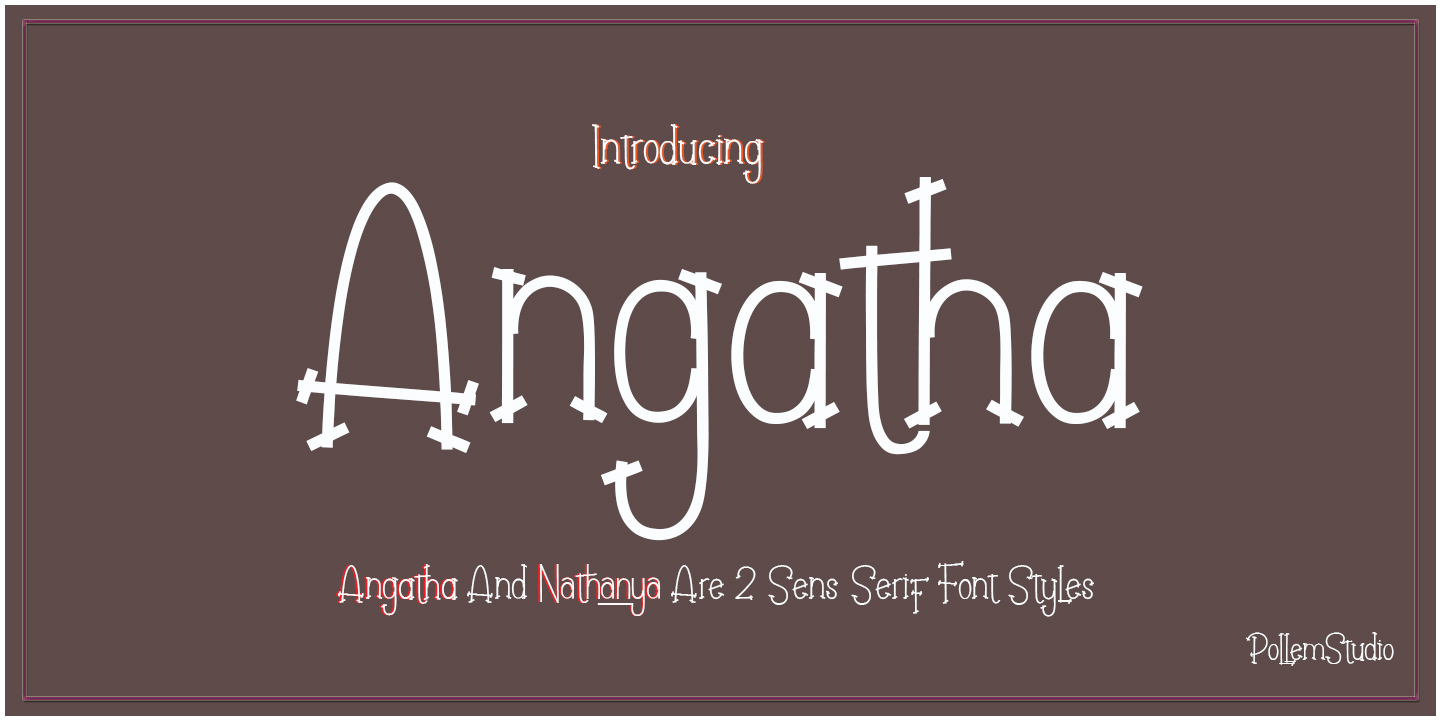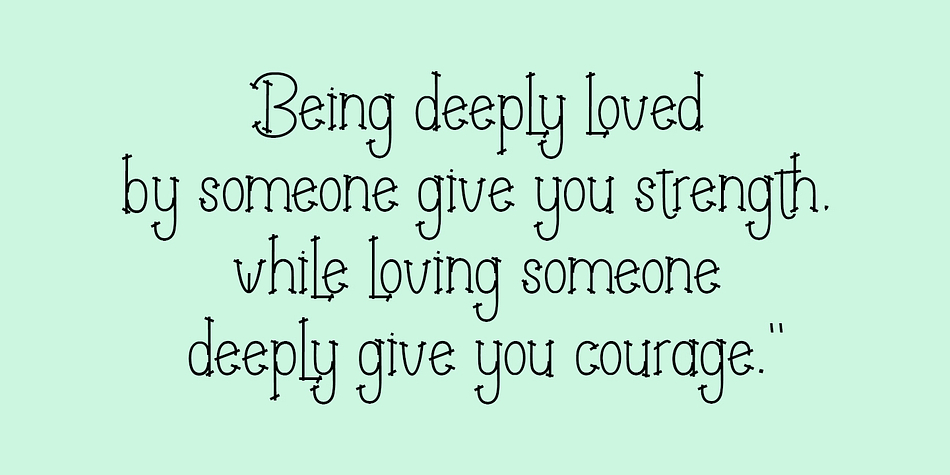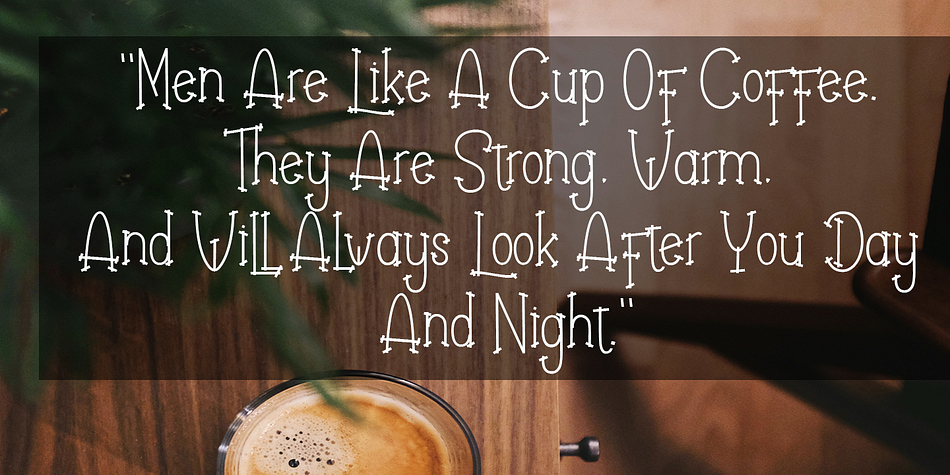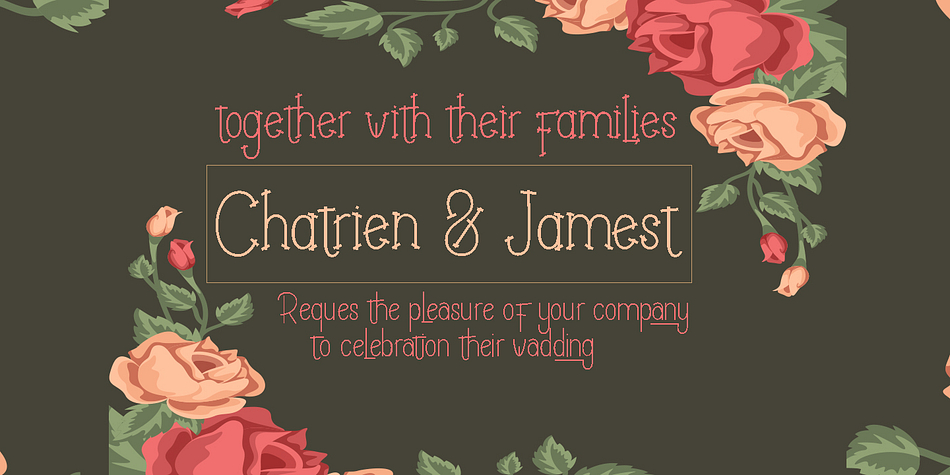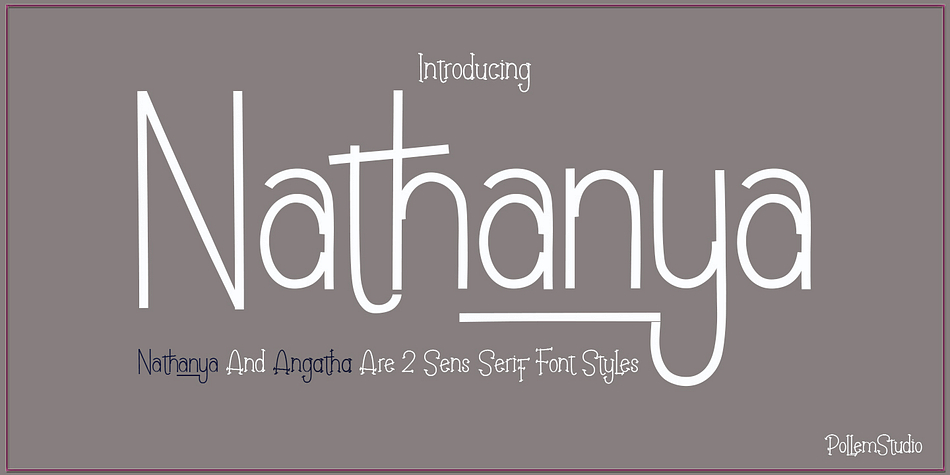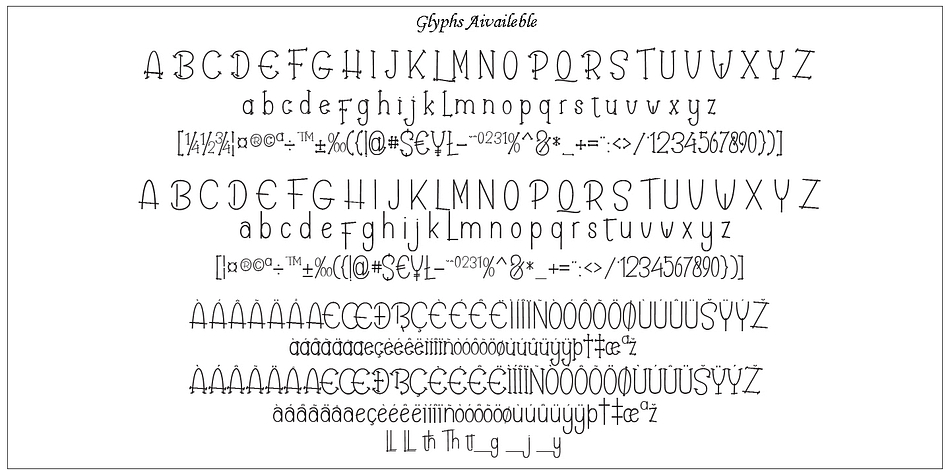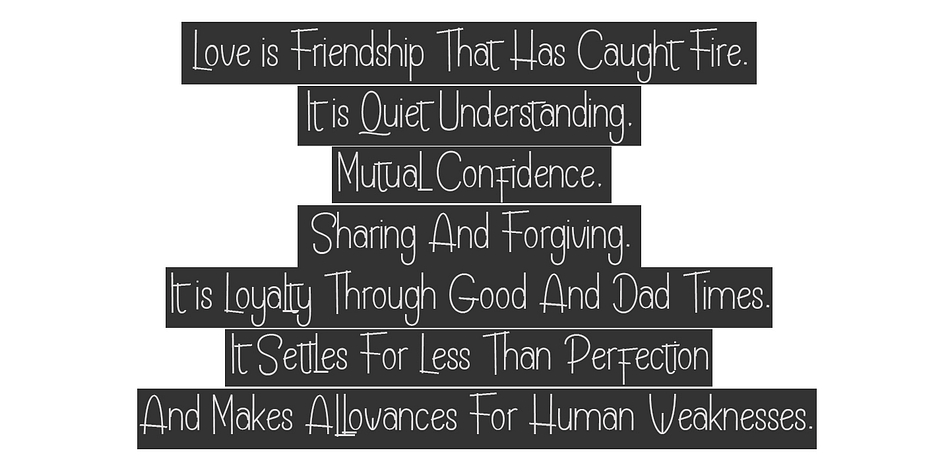
Angatha & Nathaya is a display, hand display and hand drawn font family. This typeface has two styles and was published by pollem.Co.
Angatha And Nathanya 2 Font Style
Angatha And Nathanya is an elegant calligraphy and natural Sans Serif style font.
Angatha And Nathanya Modern Calligraphy is perfect for wedding designs, shared moments, branding projects, logos, social media posts, advertisements, product packaging, product design, labels, photography, watermarks, invitations, stationery, and any project that requires a handwritten feel.
The Features of this fonts is:
* Standart ligatures
* Stylistic sets
* PUA Unicode (Private Use Areas)
* Fonts include multilingual support for; ä ö ü Ä Ö Ü ¿ ¡
a font that made the hand by having the character up and down like a dancer. Angatha And Nathanya has a very unique style of calligraphy, it is very suitable for use in the work of modern design.